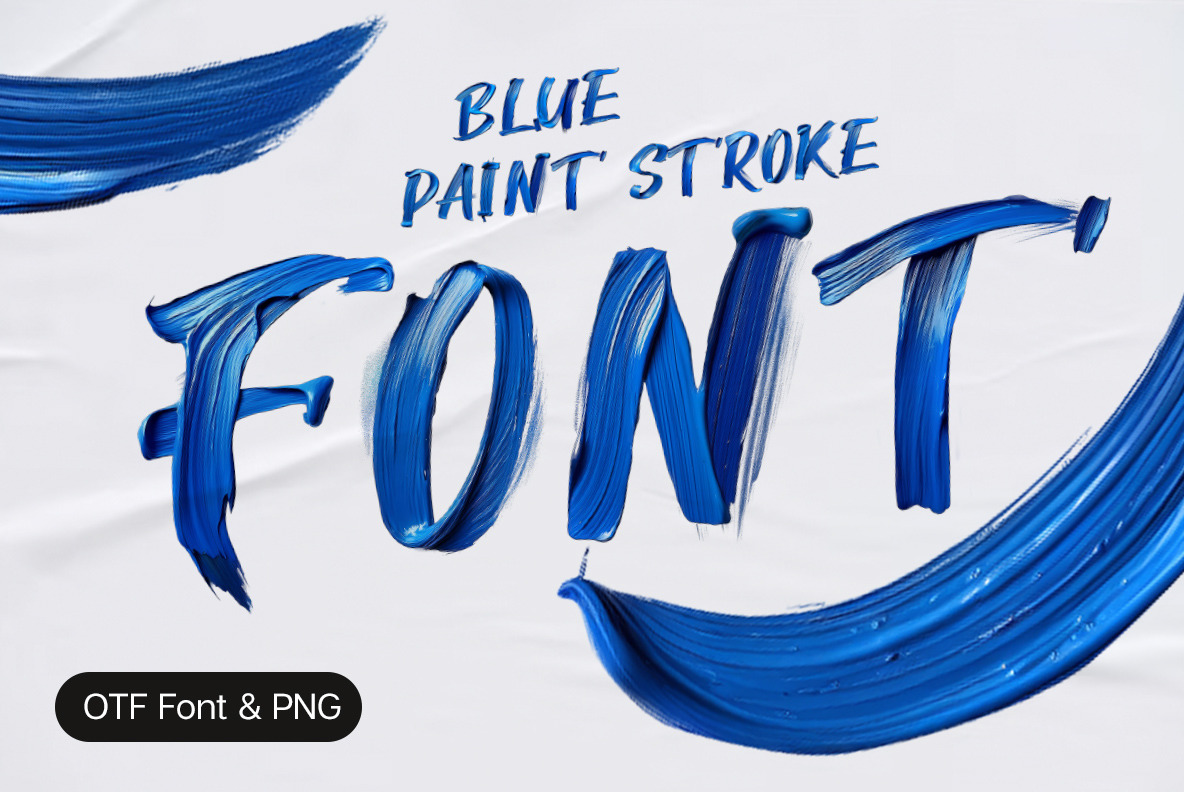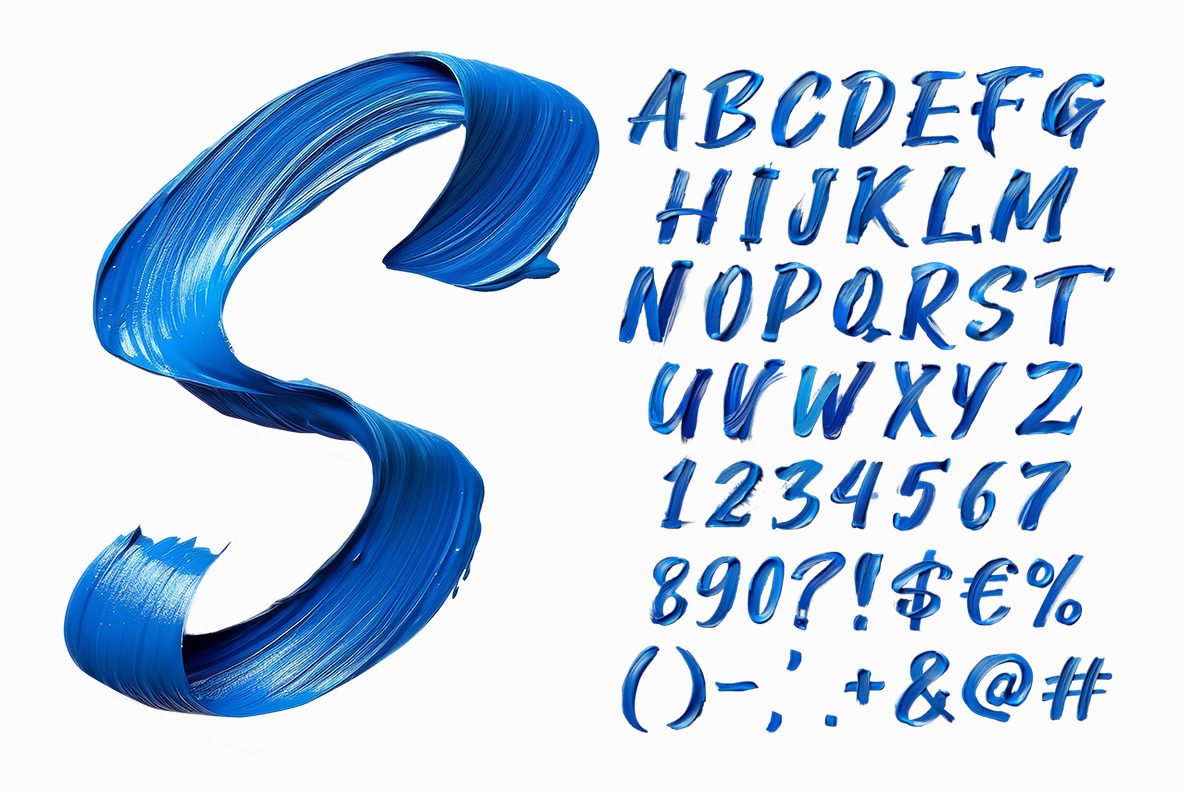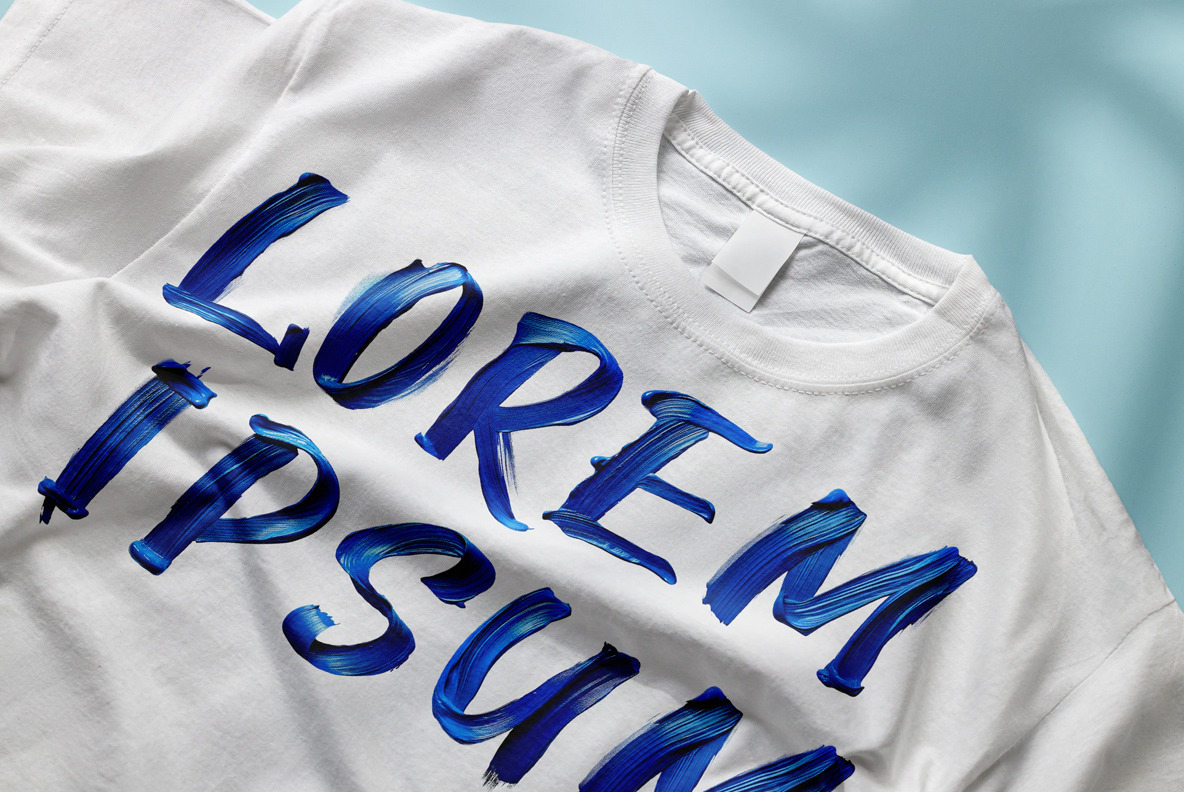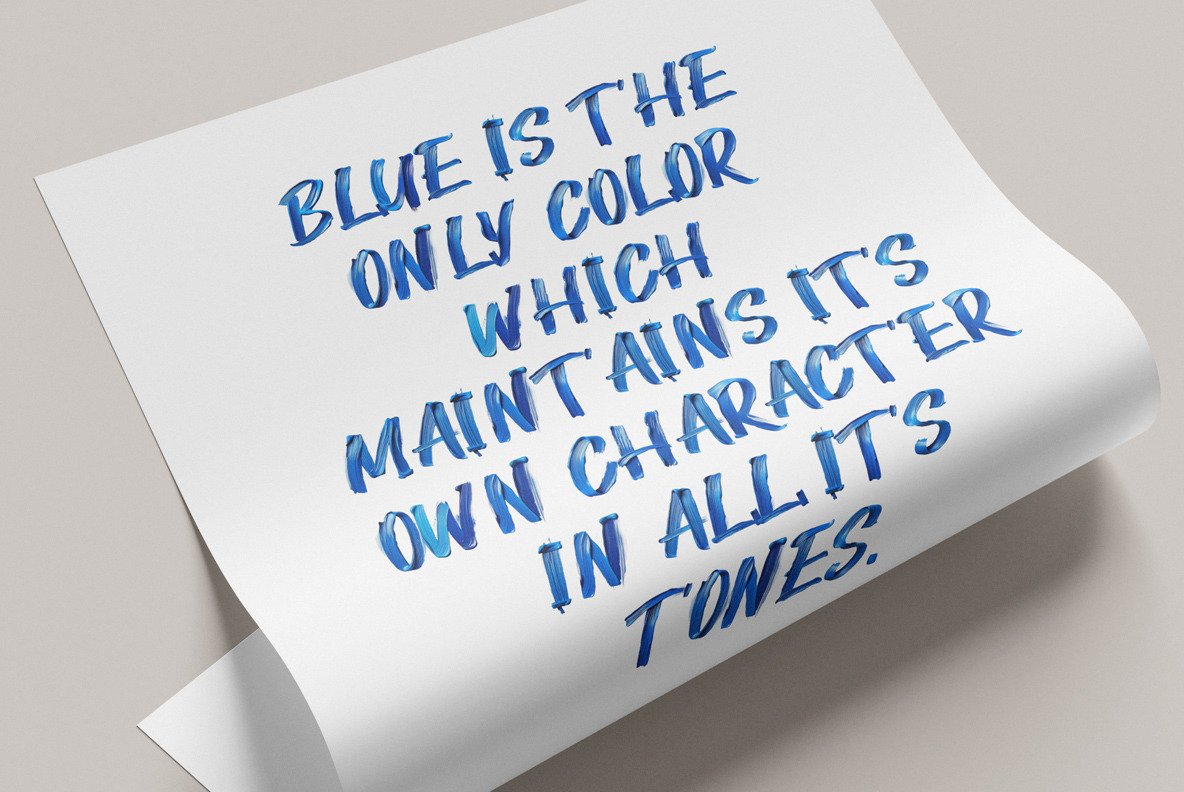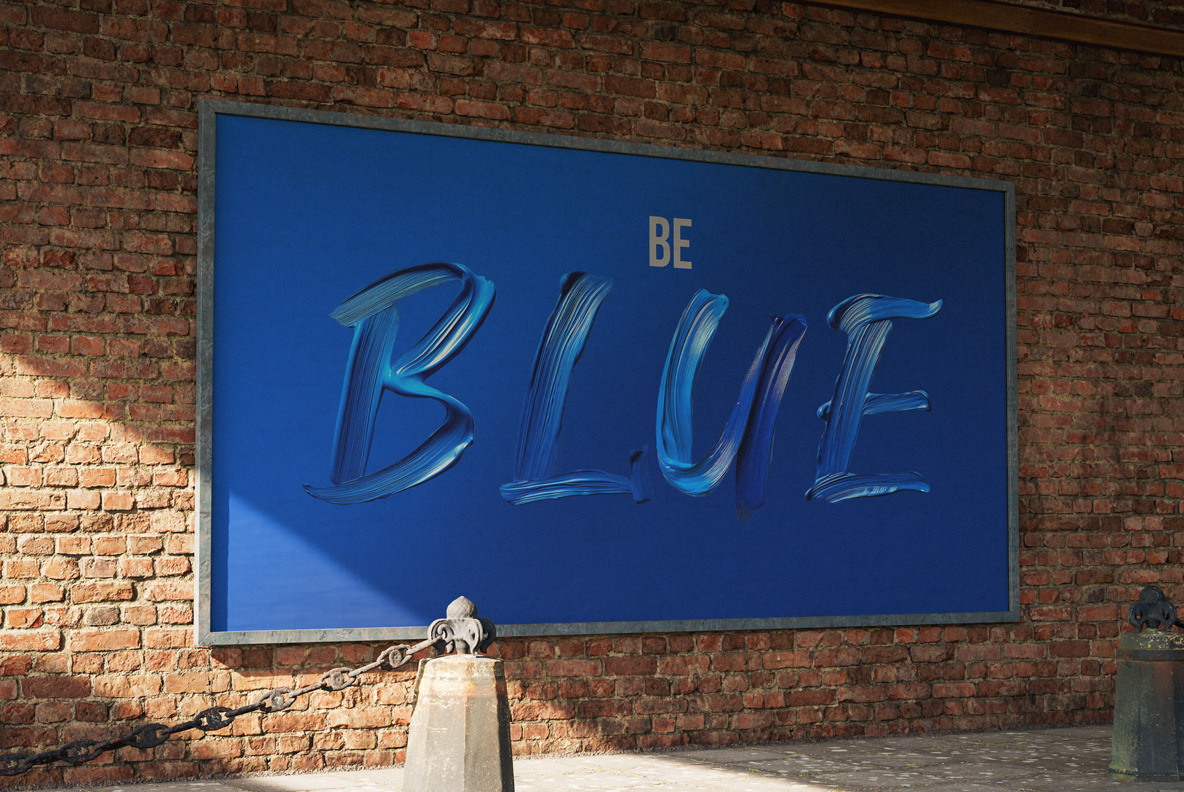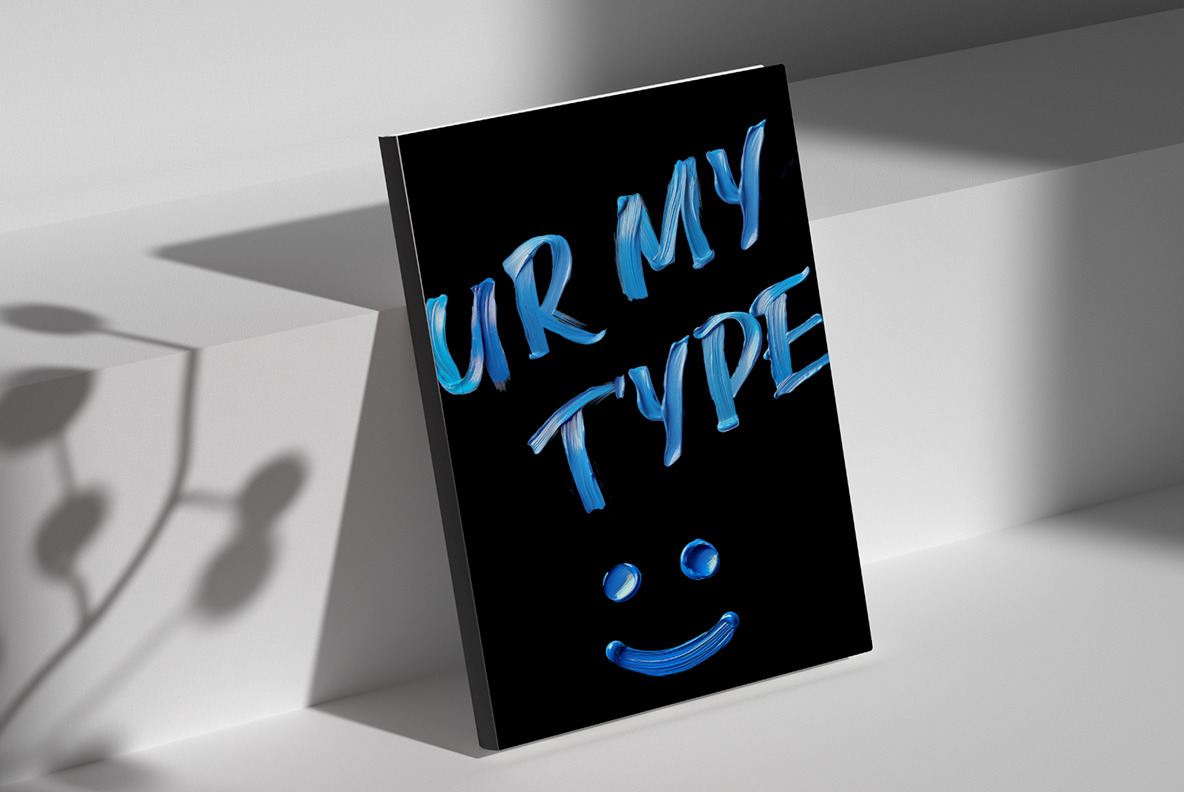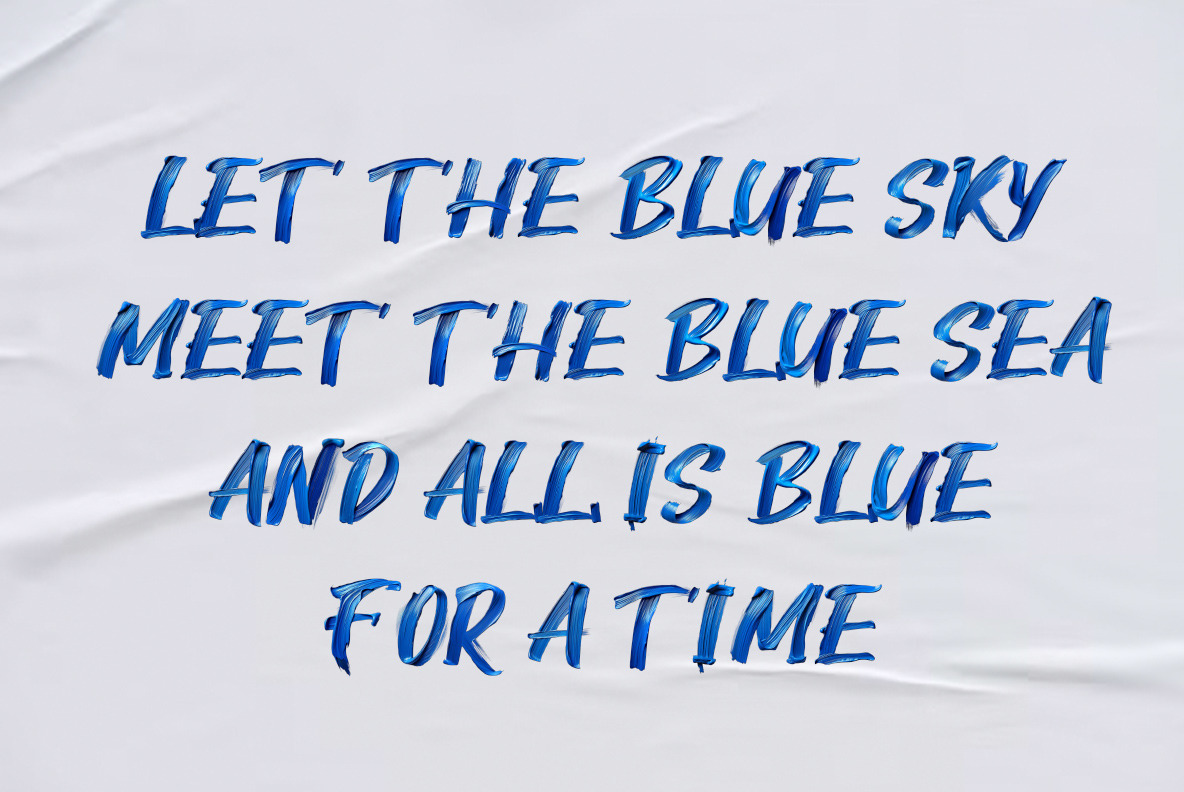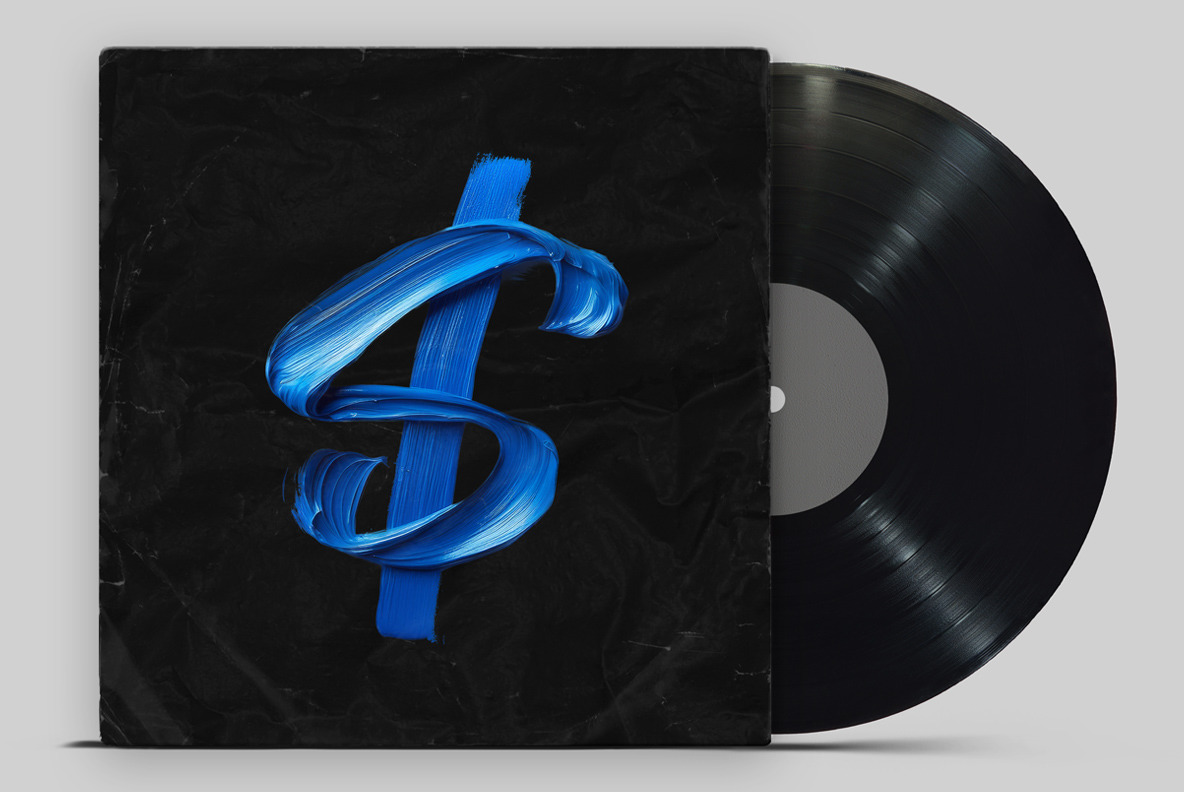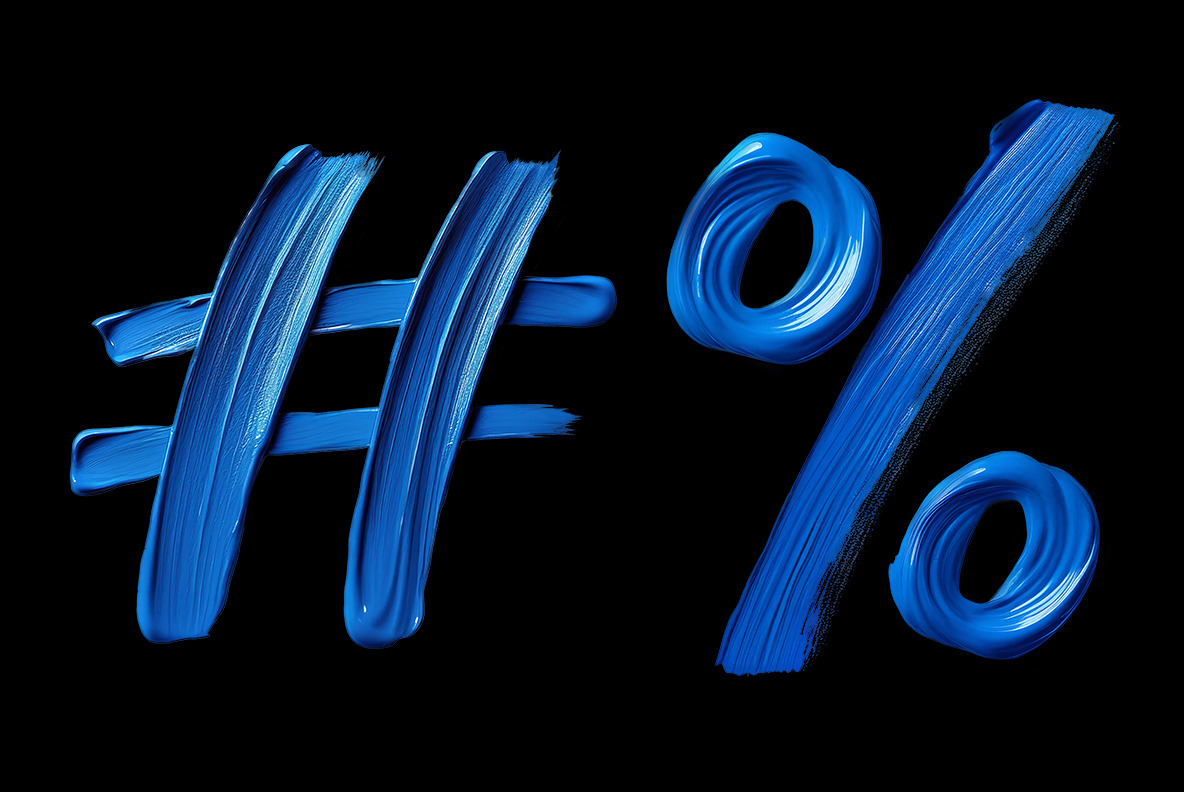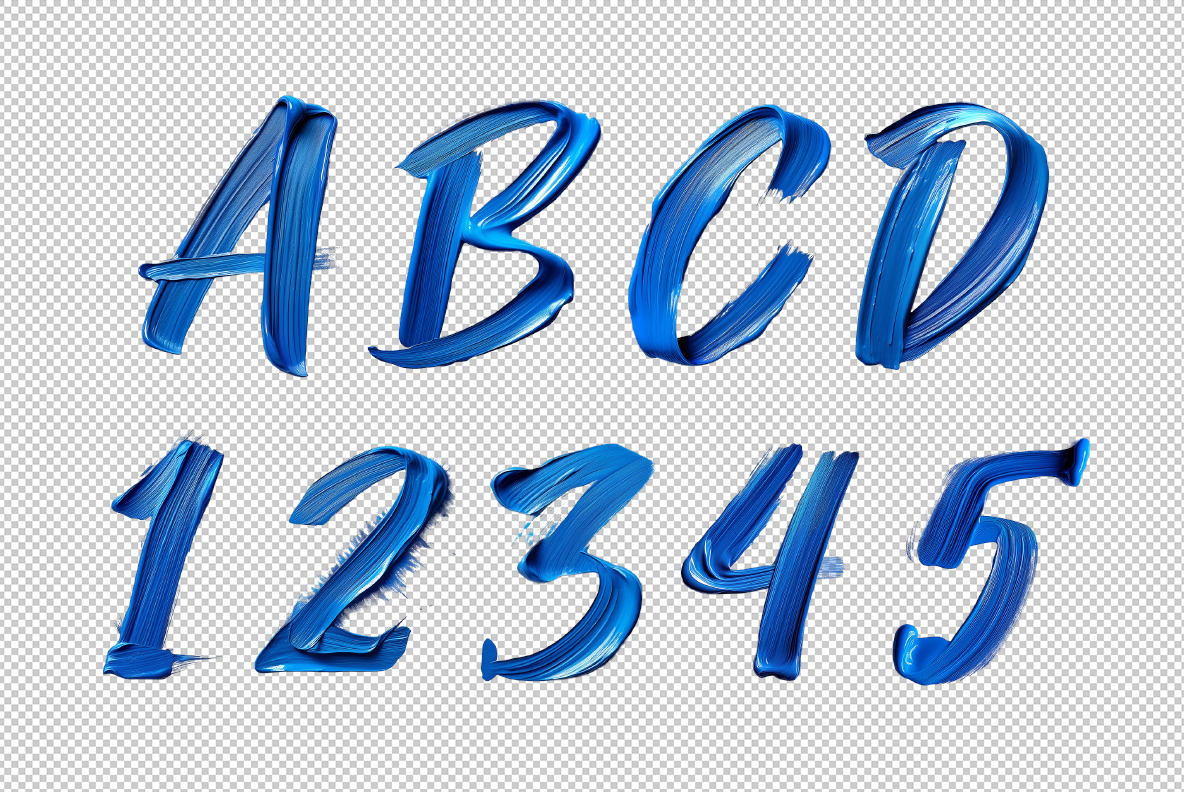
Blue Paint Stroke Font
Imagine a font that looks like someone just dragged a paintbrush across the screen and called it a day. That’s the Blue Paint Stroke Font. It’s like the alphabet went through a mid-life crisis and decided to become a tortured artist. The letters? Oh, they’re artsy, smeared in bold blue strokes—each one pretending it’s too sophisticated for Times New Roman, yet somehow endearing in its disheveled state. It's OpenType, of course—so good luck using it unless your software's high-tech enough to understand color bitmap fonts. But, hey, if it works, it’s like reading a Jackson Pollock
Blue Paint Stroke Font. A high definition OpenType Font. Contains uppercase characters, numerals and basic punctuation. (Draw height roughly 800 pixels). All letters and glyphs that comprises this font you can see on the preview.